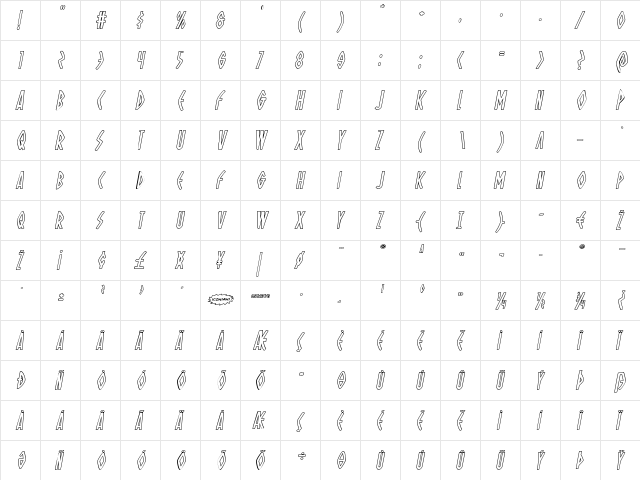
Oh Mighty Isis Outline Italic Italic
Design Context for Oh Mighty Isis Outline Italic Typeface
Oh Mighty Isis Outline Italic is built around its visual character rather than neutral utility — its distinctive forms are designed to make an impression at display sizes. The dynamic lean of this cut emphasises speed and emphasis in any layout.
Font Pairing: Pair with a clean neutral sans-serif for body copy to let Oh Mighty Isis Outline Italic's character lead without overwhelming the composition.
Pro Tip: Use Oh Mighty Isis Outline Italic exclusively at display sizes — it was designed to be seen, not read at length. Let a neutral companion handle body copy.